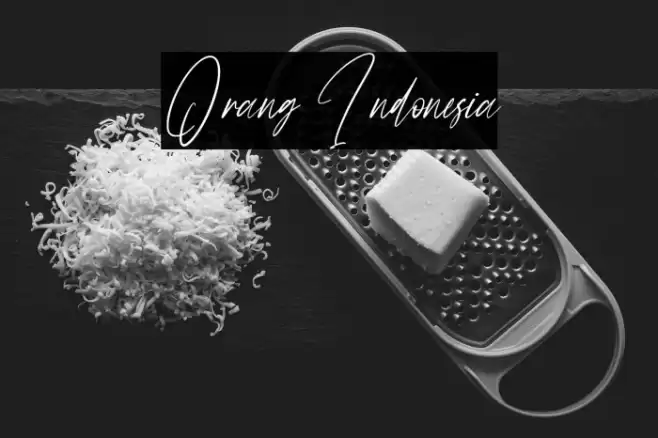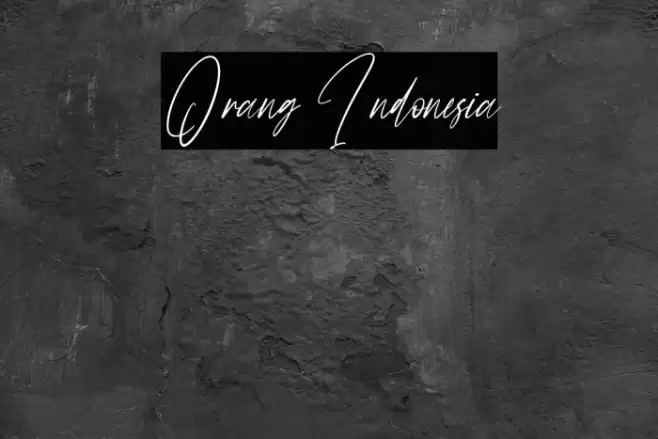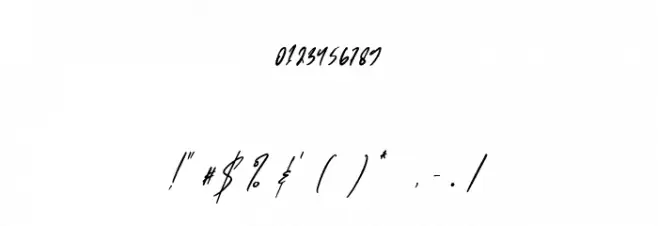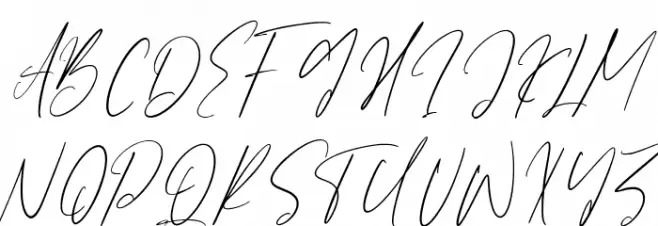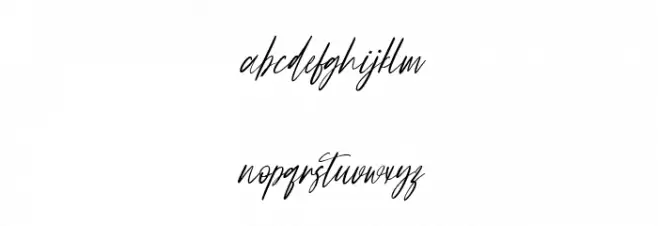
Orang Indonesia Font
Orang Indonesia Description
A delicate, flowing handwritten script with tall, narrow letterforms and dramatic ascenders and descenders. The strokes are thin and highly variable, giving a natural, calligraphic appearance. The characters are loosely spaced, with a casual yet elegant style.
Elegant, thin handwritten script with tall, flowing forms from Uncategorized fonts.
- Proposed Projects: Wedding invitations, personal branding, greeting cards, quotes, feminine product packaging.
- Weight: Light
- Character Spacing: Wide
- Overall Style: Decorative, Elegant, Handwritten
- Use Case: Logos, Invitations, Headlines, Decorative text